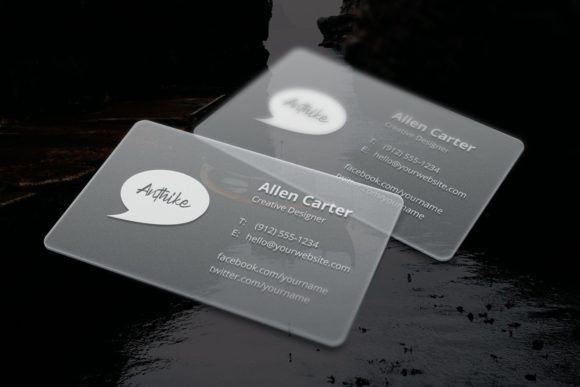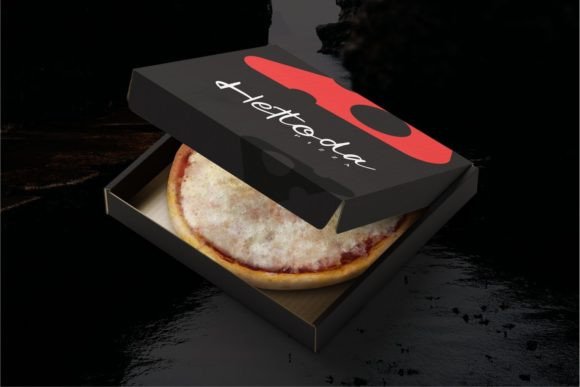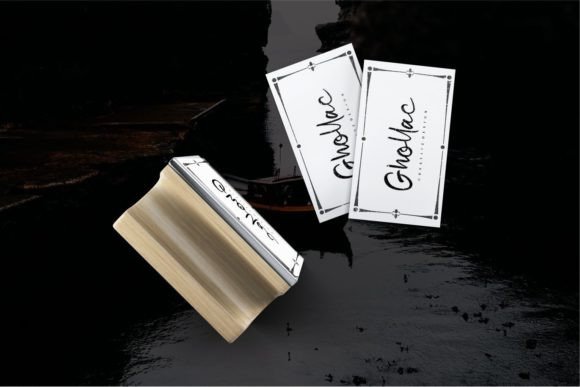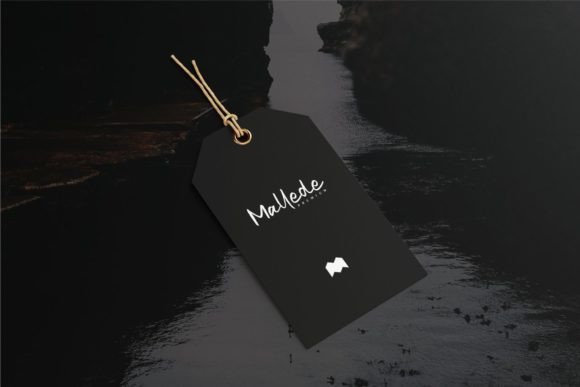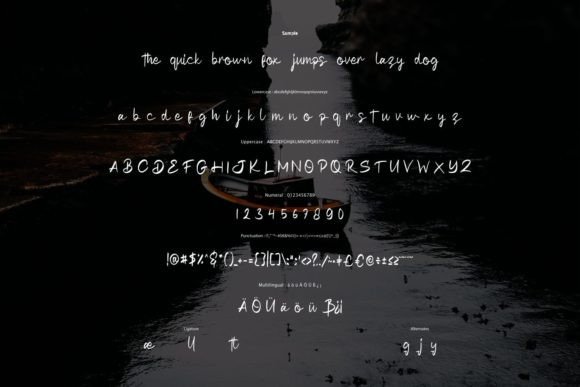
Introduction to Jimtlory Land Font Font
Fonts play a crucial role in design, and the Jimtlory Land Font font is a typeface that brings both character and versatility to any project. Whether you’re working on a branding project, a website, or a print design, the Jimtlory Land Font font offers a unique style that can elevate your work.
| 👤 Author | Vunira |
Jimtlory Land is a beautiful and light handwritten font with a unique feel and a stunning impact.
It will add a luxury spark to any design project that you wish to create .
Key Features of Jimtlory Land Font Font
Why Choose Jimtlory Land Font Font?
The Jimtlory Land Font font is more than just a typeface – it’s a design tool that helps you communicate your message with style and clarity. Its unique character set and versatile design make it suitable for a wide range of applications, from elegant invitations to bold headlines.
With its carefully crafted letterforms and balanced proportions, the Jimtlory Land Font font ensures readability and visual appeal across all mediums.
What makes Jimtlory Land Font font special?
The Jimtlory Land Font font stands out with its unique design, exceptional readability, and versatility across various design applications.